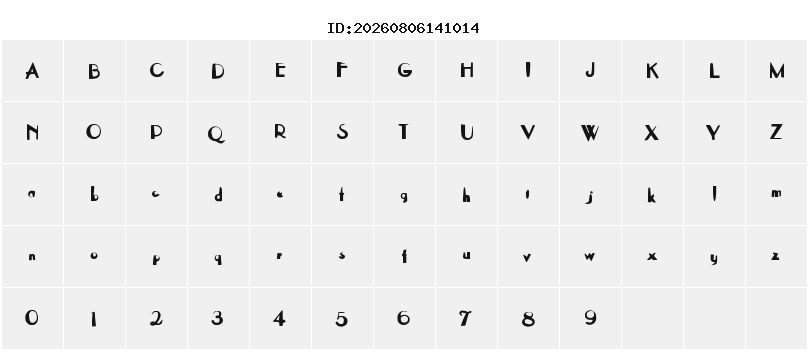
OntheLeft Preview
• Font Name: OntheLeft
About OntheLeft.ttf
OntheLeft.ttf is a modern, elegant sans-serif font designed for ultimate readability and visual harmony. Perfect for branding, headlines, web design, and print materials.